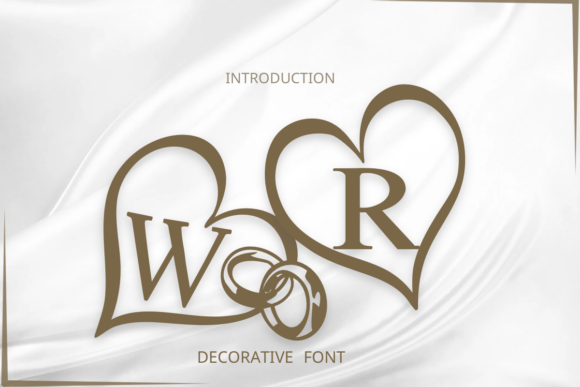
Cute Wedding Ring Font: The Perfect Addition to Your Creative Projects
The Cute Wedding Ring font is a delightful and decorative font that has captured the hearts of many designers and crafty individuals. This charming font is not only perfect for wedding-related designs but also for a wide range of creative projects. In this article, we’ll explore the world of Cute Wedding Ring font and discover its endless possibilities.
What is Cute Wedding Ring Font?
Cute Wedding Ring is a decorative font that features elegant and intricate designs, reminiscent of wedding rings. The font is carefully crafted to add a touch of romance and whimsy to any project. Its unique and eye-catching design makes it perfect for a variety of applications, from personal to commercial use.
Uses of Cute Wedding Ring Font
This versatile font can be used for a multitude of creative projects, including:
- Wedding-related designs: Create beautiful wedding invitations, save-the-date cards, and ceremony programs that will leave a lasting impression on your guests.
- Note-taking and journaling: Add a touch of elegance to your notes and diary entries with Cute Wedding Ring font.
- Greeting cards: Design stunning greeting cards for special occasions like birthdays, anniversaries, and holidays.
- Banners and signs: Create eye-catching banners and signs for events, parties, or promotions.
- Merchandise: Use Cute Wedding Ring font to design unique and personalized merchandise, such as mugs, t-shirts, and tote bags.
- Stationery: Elevate your stationery game with beautifully designed letters, notecards, and journals.
- Social media posts: Add a touch of personality to your social media posts and make them stand out from the crowd.
Benefits of Using Cute Wedding Ring Font
So, why choose Cute Wedding Ring font for your creative projects? Here are some benefits:
- Unique and eye-catching design: The font’s intricate design and elegant style make it perfect for creating visually stunning projects.
- Versatility: Cute Wedding Ring font can be used for a wide range of projects, from personal to commercial use.
- High-quality: The font is of high quality, ensuring that your projects look professional and polished.
Tips for Using Cute Wedding Ring Font
To get the most out of Cute Wedding Ring font, here are some tips:
- Pair with other fonts: Experiment with pairing Cute Wedding Ring font with other fonts to create a unique and visually appealing design.
- Use for headings and titles: The font is perfect for headings and titles, adding a touch of elegance and sophistication to your projects.
- Experiment with colors: Try out different colors and color combinations to add depth and interest to your designs.
- Keep it simple: Don’t overcomplicate your design – sometimes, less is more. Let the font speak for itself.
Cute Wedding Ring font is a beautiful and versatile font that can add a touch of elegance and whimsy to any creative project. With its unique design, ease of use, and high-quality output, it’s perfect for designers, crafty individuals, and anyone looking to add a personal touch to their projects. Whether you’re creating wedding-related designs, greeting cards, or social media posts, Cute Wedding Ring font is sure to impress.